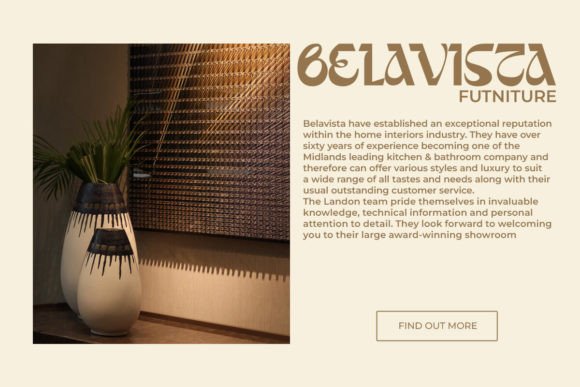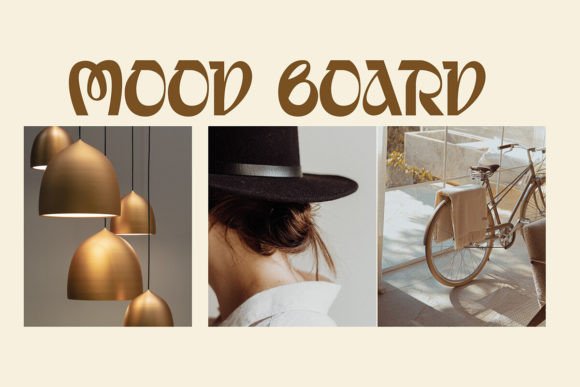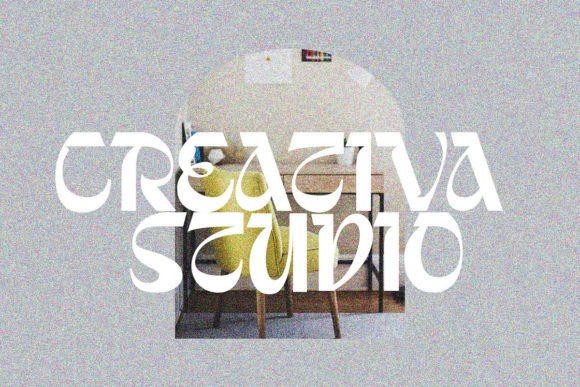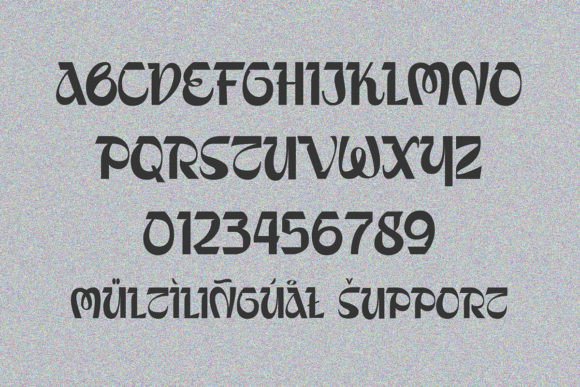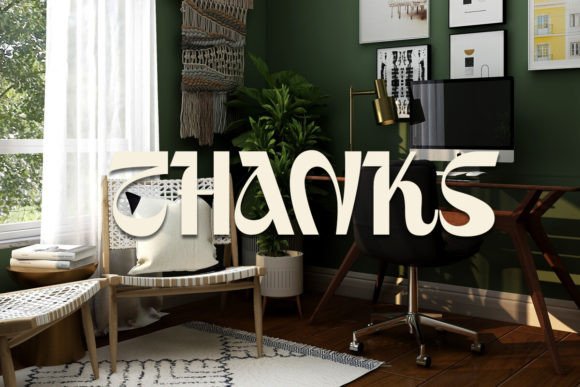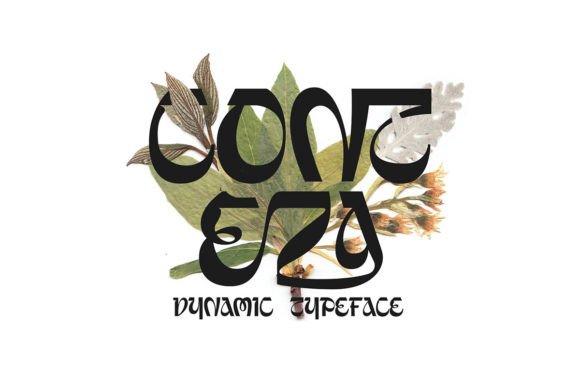
Introducing “Conteza” Font: Redefining Modern Blackletter Elegance
In the world of typography, few styles have endured as long as blackletter. With its rich history and distinctive aesthetic, it’s a favorite among designers and crafters looking to add a touch of elegance and sophistication to their work. Now, imagine a font that takes the timeless essence of blackletter and infuses it with a captivating contemporary twist. Welcome to “Conteza,” a remarkable font that’s poised to revolutionize the way you approach typography.
The Birth of a Masterpiece
“Conteza” is more than just a font – it’s a masterpiece meticulously designed to elevate your designs, projects, and artworks to new heights of sophistication and creativity. With its unique blend of traditional blackletter style and modern flair, this font is sure to captivate audiences and leave a lasting impression. Whether you’re a designer, crafter, or simply someone who appreciates the art of typography, “Conteza” is an essential tool to have in your arsenal.
What Sets “Conteza” Apart
So, what makes “Conteza” so special? For starters, it’s PUA (Private Use Area) encoded, which means you can access all of the amazing glyphs and ligatures with ease. This font is designed to be versatile and user-friendly, allowing you to focus on the creative process without getting bogged down in technical details. With “Conteza,” you can effortlessly add a touch of elegance and sophistication to your work, whether you’re designing a logo, crafting a handmade project, or creating digital art.
Unleash Your Creativity
“Conteza” is more than just a font – it’s a key to unlocking your full creative potential. With its wide range of glyphs and ligatures, you can experiment with different styles and effects to create truly unique and eye-catching designs. Whether you’re working on a commercial project or a personal passion project, “Conteza” gives you the tools you need to bring your vision to life.
“Conteza” is a font that’s specifically designed with designers and crafters in mind. Whether you’re creating digital art, crafting handmade projects, or designing marketing materials, this font is the perfect choice. With its elegant and sophisticated aesthetic, “Conteza” is sure to elevate your work and help you stand out from the crowd.
Key Features of “Conteza”
- PUA encoded: Access all of the amazing glyphs and ligatures with ease
- Timeless blackletter style: Infused with a captivating contemporary twist
- Versatile and user-friendly: Perfect for designers, crafters, and anyone who appreciates typography
- Elegant and sophisticated aesthetic: Elevate your designs and projects to new heights
- Wide range of glyphs and ligatures: Experiment with different styles and effects to create unique designs
Get Ready to Elevate Your Typography